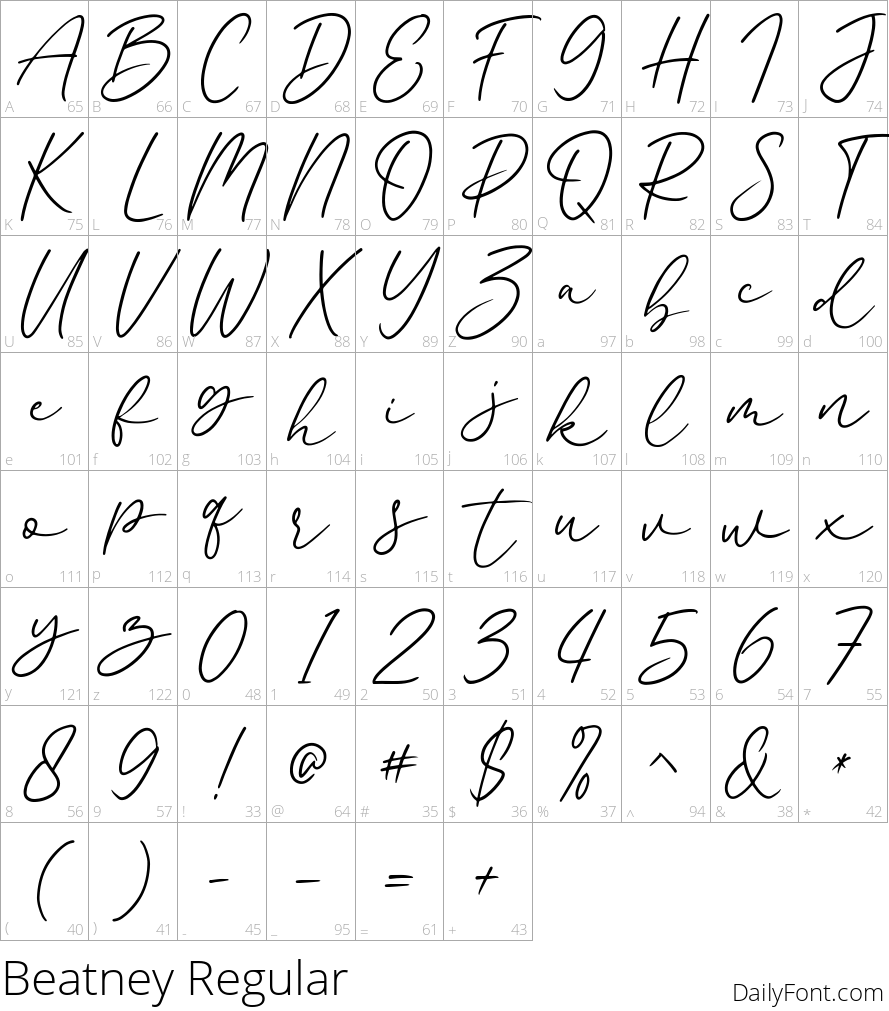
Beatney
Introducing Beatney, the elegant and dainty handwritten font that adds a touch of charm to your projects. Featuring sweet, delicate swashes, this font is perfect for everything from sophisticated letterheads to delightful wedding invitations and personalized stationery. With its original look and unique styling, Beatney stands out in the world of fonts, appealing to crafters, designers, and entrepreneurs alike. Plus, Beatney is PUA encoded, ensuring easy access to all its beautiful glyphs and swashes, making customization a breeze. Whether you're creating content for social media, designing business branding materials, or enhancing personal projects, Beatney offers versatility and style. Elevate your designs with this stunning font that merges elegance with creativity, ensuring your work captivates and engages your audience. Unleash your artistic potential with Beatney, the perfect font choice for those seeking a graceful handwritten touch.